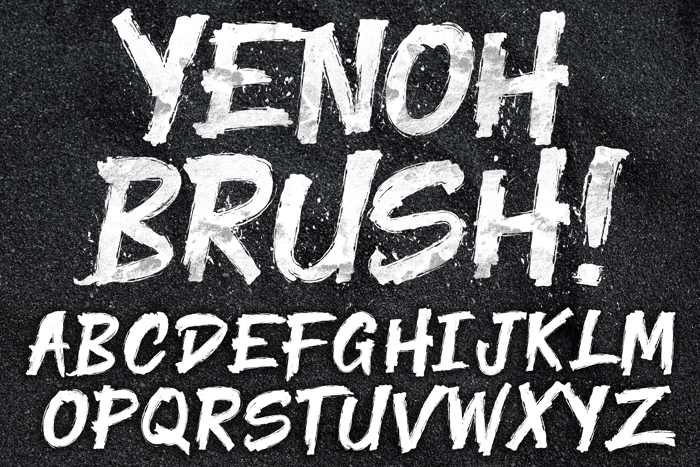
Yenoh Brush Demo Font
YENOH BRUSH
- Handmade bold brush inspired font perfect on your projects, covers, etc.
- Lifestyle modern theme font for branding, website, mobile app etc.